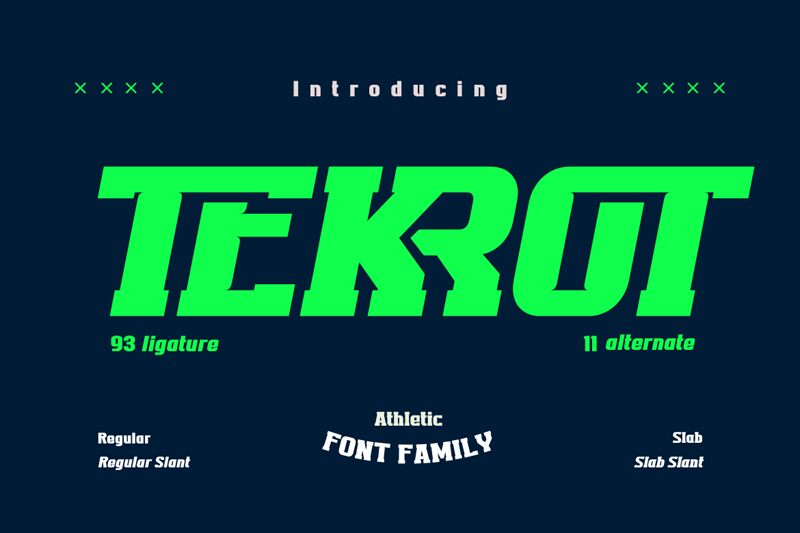
Tekrot, crafted by the creative minds at Twinletter, stands out with its bold personality and striking presence. This font boasts a confident and assertive style that commands attention, making it an ideal choice for headlines and statements that need to make an impact. The pronounced thickness of its characters conveys a sense of strength and solidity.
In terms of application, Tekrot's robust character makes it a perfect fit for branding projects, advertising campaigns, and any design work where a touch of boldness is needed to cut through the noise. Its aesthetic appeal lies in its ability to stand out on posters, banners, or any platform where visibility is key. Whether it's digital media or print, Tekrot ensures that your message is not just seen but felt.